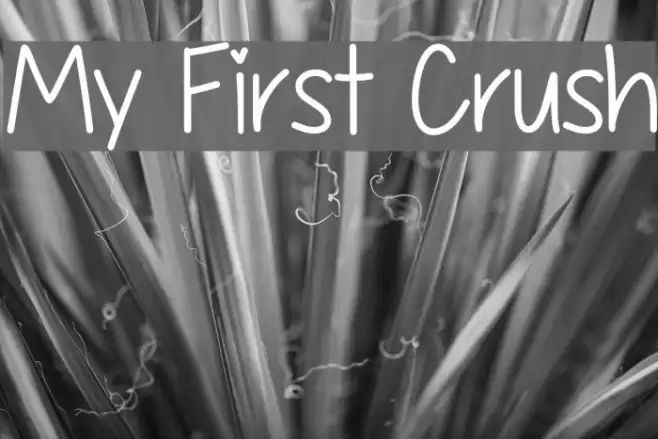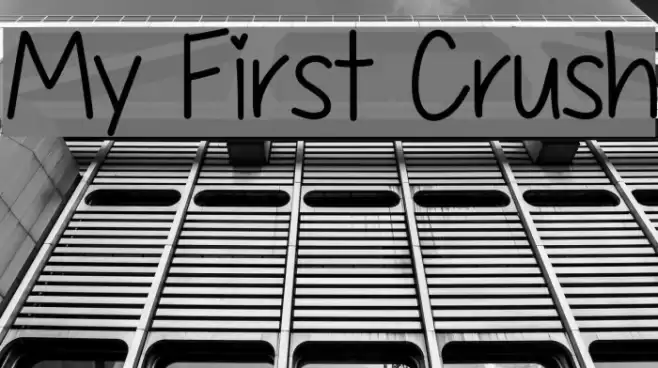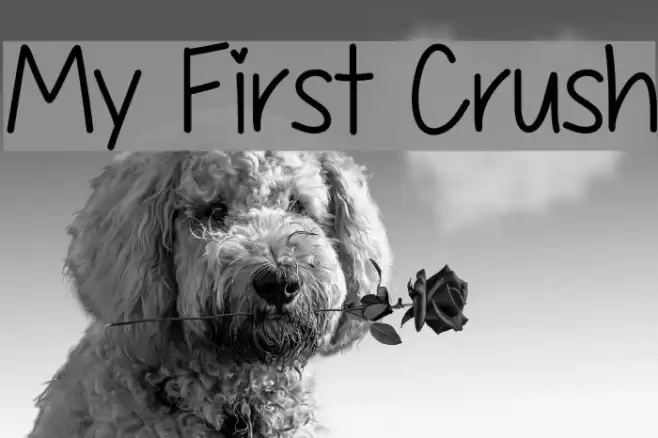
My First Crush Font
My First Crush Description
This playful and whimsical font features a handwritten style with a casual, friendly appearance. The letters are slightly irregular, giving it a personal touch that mimics natural handwriting. The strokes are consistent in width, providing a uniform look across all characters. The uppercase letters are tall and slightly narrow, while the lowercase letters maintain a rounded, approachable form. Numbers and special characters follow the same playful aesthetic, making the font versatile for various informal applications. The overall design is clean and legible, suitable for projects that require a touch of personality and warmth.
A playful, handwritten font with a casual and friendly style from Uncategorized fonts.
- Proposed Projects: Ideal for greeting cards, children's books, playful branding, and social media graphics.
- Overall Style: Casual, Playful
- Use Case: Headlines, Informal text, Personal projects